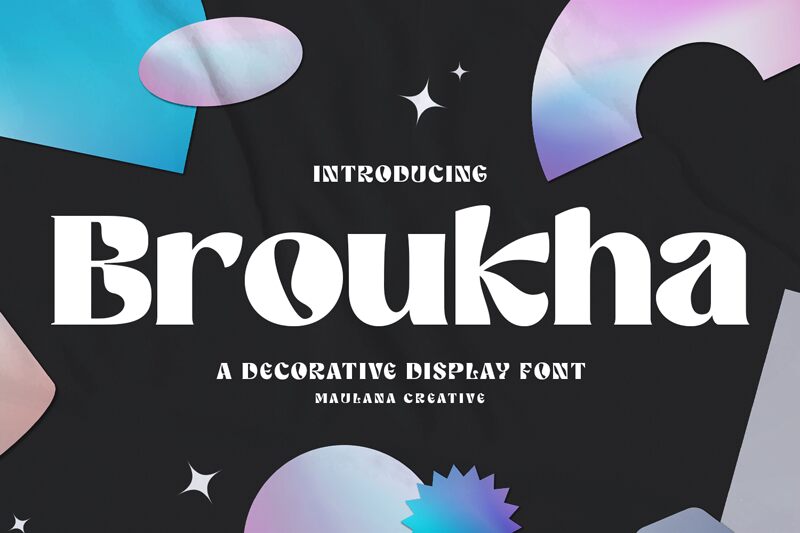
Broukha, designed by Maulana Creative, is an extra-bold display font that exudes groovy and decorative vibes. With its semi-expanded width, this font adds a unique touch to any creative project it graces.
Perfect for album covers, retro-themed websites, and eye-catching advertisements, Broukha brings a sense of playfulness and excitement to your designs. Its boldness demands attention while its decorative elements add a touch of artistic flair.
Let Broukha's groovy style infuse your next project with personality and captivate your audience like never before.